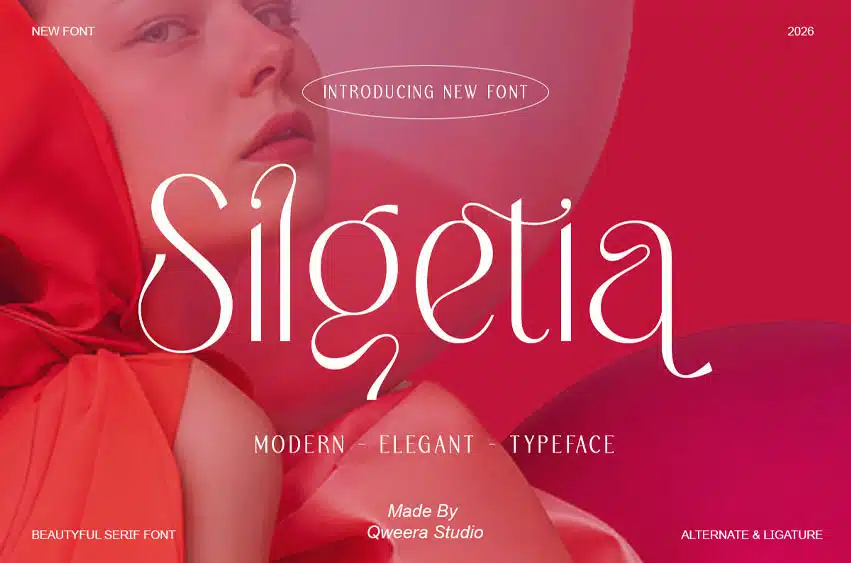
Silgetia Font is a modern elegant serif font crafted for beauty branding, lifestyle logos, fashion campaigns, creative studio visuals, and refined packaging design. With its soft curves, graceful alternates, and stylish ligature details, Silgetia brings a clean, expressive, and sophisticated presence to contemporary visual projects.
Its polished display character works beautifully for beauty brands, fashion editorials, pottery class posters, home decor visuals, boutique logos, product labels, social media graphics, and premium lifestyle presentations. Silgetia includes uppercase and lowercase characters, stylish alternates, ligatures, multilingual support, professional kerning, Regular and Italic styles, plus OTF, TTF, WOFF, and WOFF2 formats for polished print and digital use.
Bring soft elegance, creative charm, and modern serif beauty into your next branding, packaging, or lifestyle project with Silgetia.
- Modern elegant serif style
- Complete uppercase and lowercase characters
- Stylish alternates and ligatures
- Multilingual character support
- Professional kerning for polished typography
- Regular and Italic font styles
- Soft stylish look for beauty, fashion, lifestyle, and creative branding
Beauty branding, Fashion campaigns, Lifestyle logos, Creative studio identity, Pottery class posters, Home decor branding, Boutique packaging, Product labels, Social media visuals, Premium brand presentations.